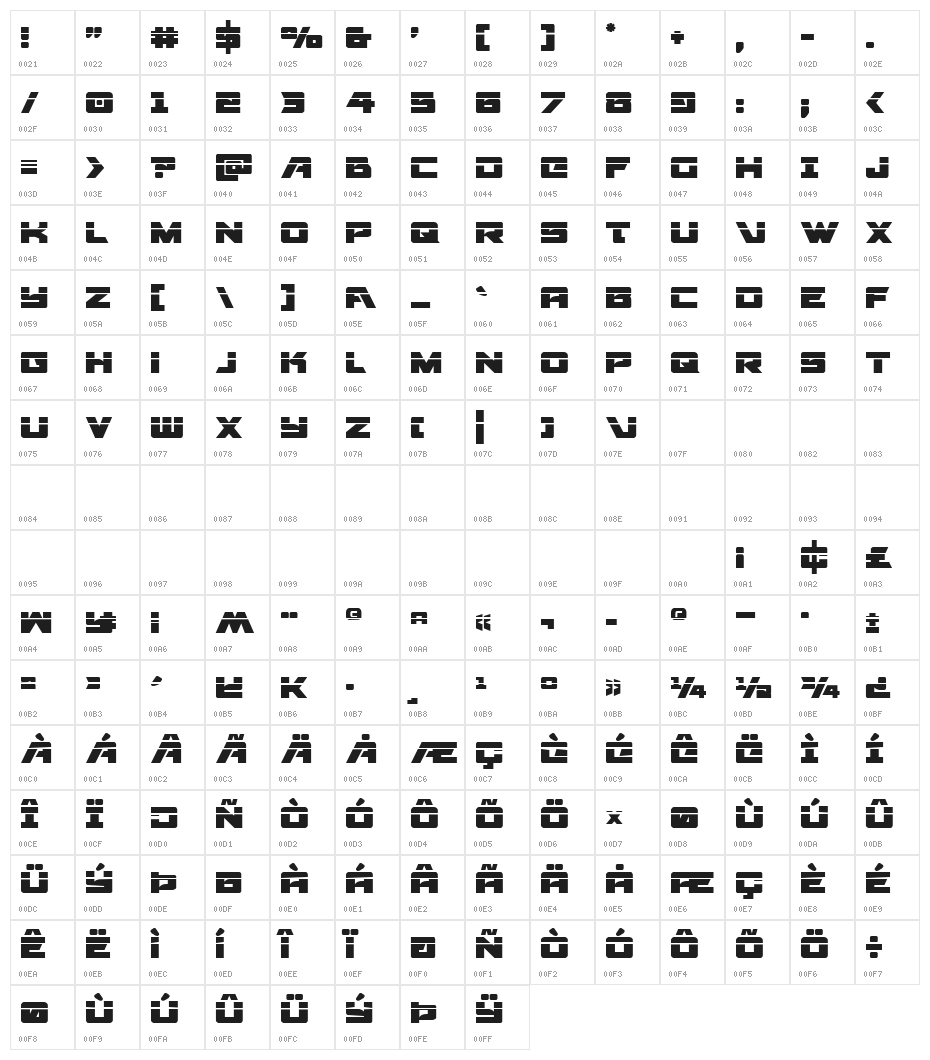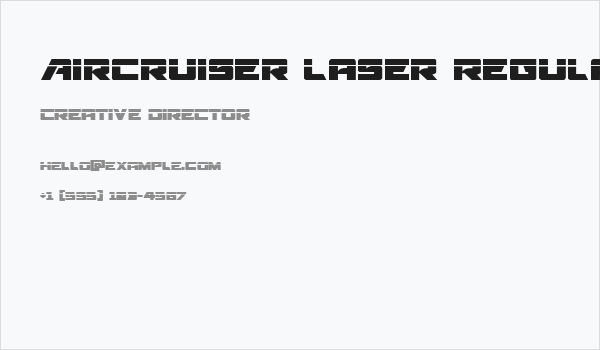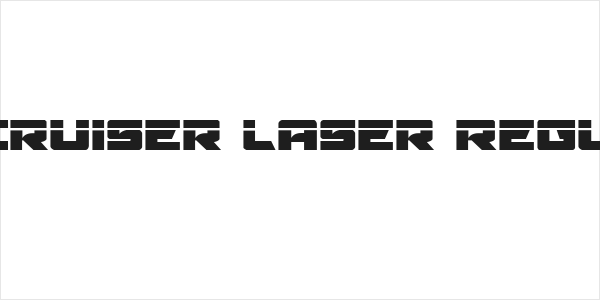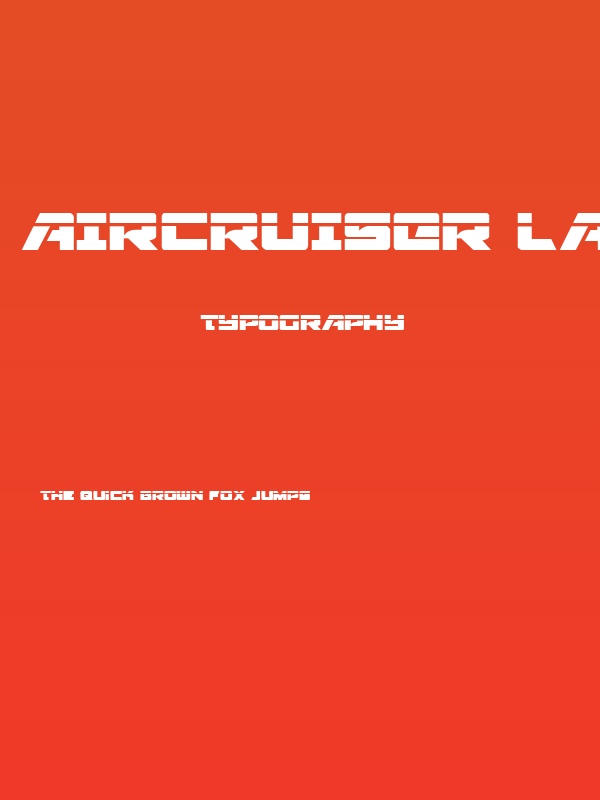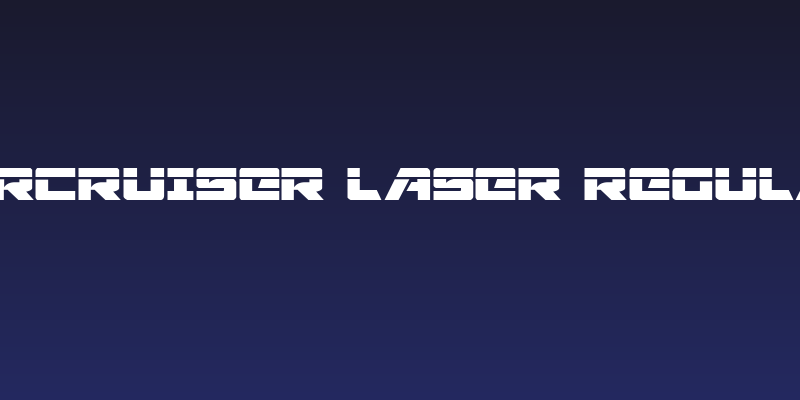
Aircruiser Laser Regular Font
Aircruiser Laser Regular Description
This font features a bold, futuristic design with a strong geometric structure. The characters are constructed with sharp angles and straight lines, giving it a modern and industrial feel. The uppercase letters are particularly striking, with a blocky appearance that conveys strength and stability. The numbers and special characters maintain this aesthetic, ensuring consistency across all glyphs. The font's unique style makes it stand out, ideal for projects that require a bold and impactful visual presence.
| Proposed Projects | Ideal for sci-fi themed designs, video game titles, technology branding, and futuristic posters. |